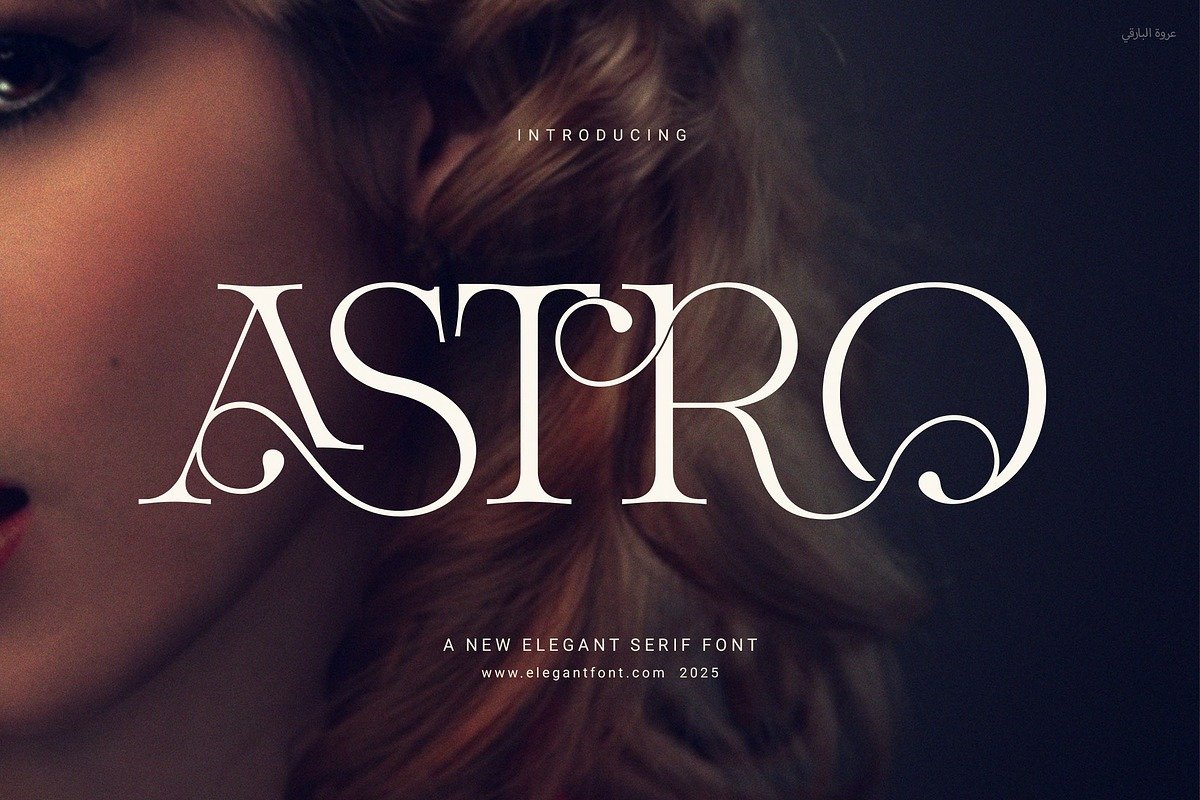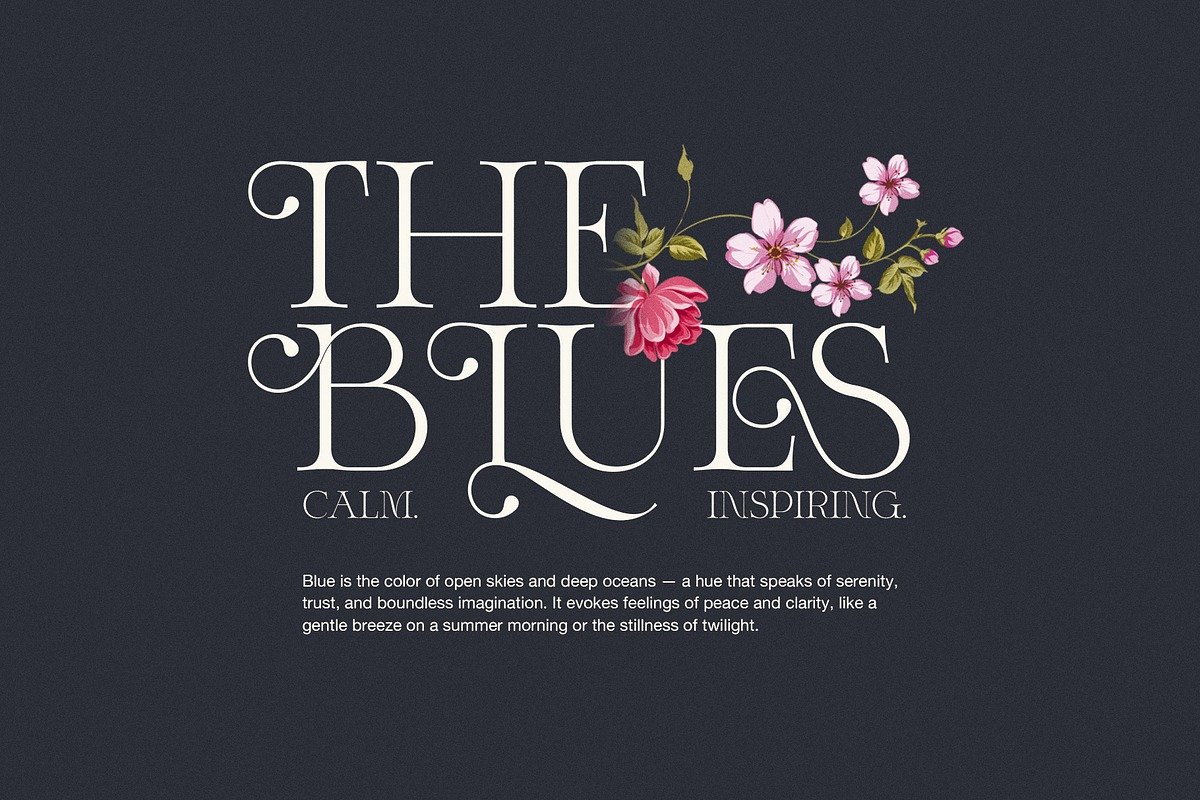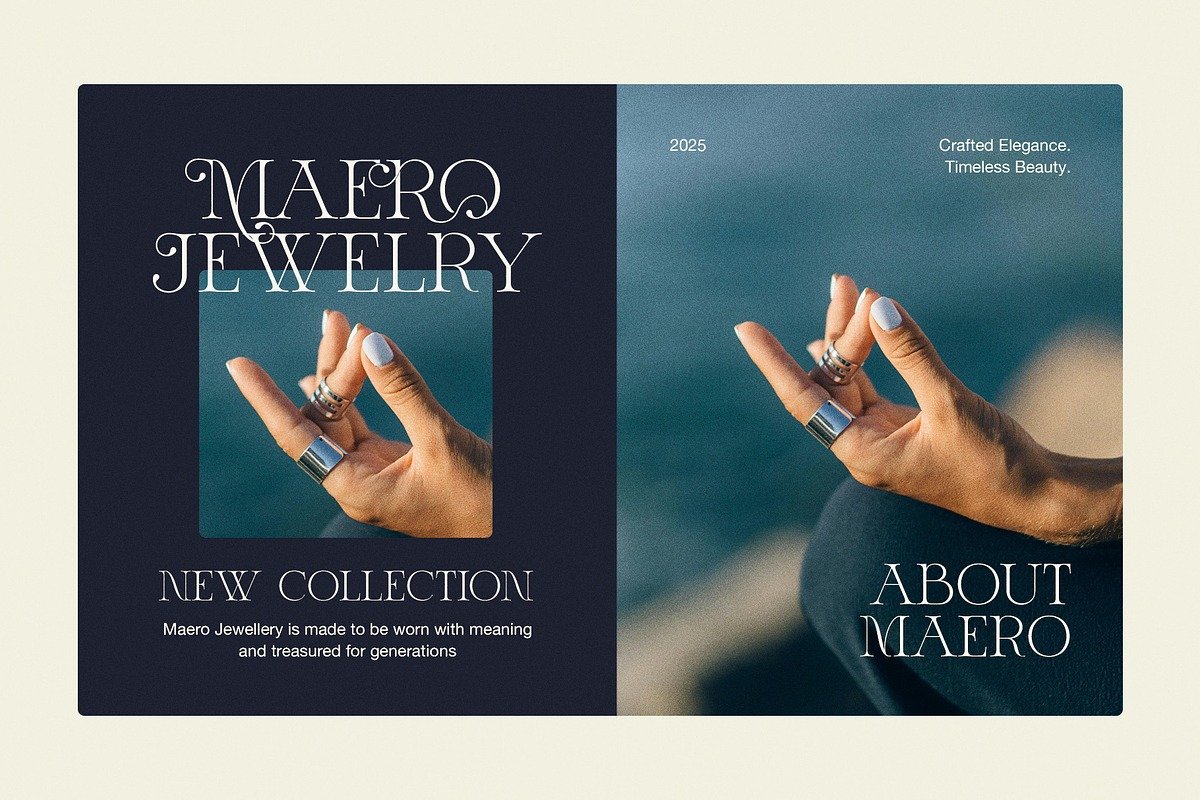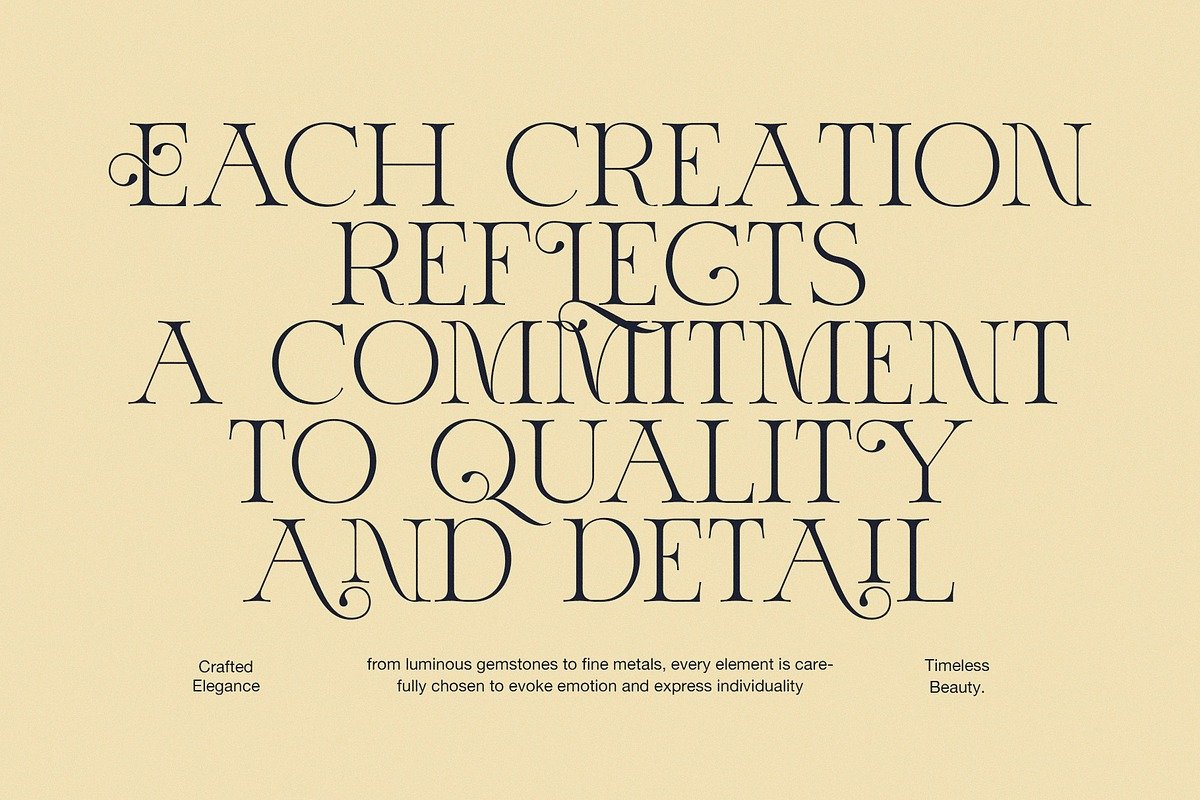
Astro Modern Serif Font
Astro Modern Serif Font: A Complete Exploration
In the expansive world of typography, few typefaces manage to achieve a fine balance between classic elegance and contemporary relevance. The Astro Modern Serif Font is one such typeface — a modern serif that brings sophistication, readability, and versatile design potential to creative projects. Whether used in branding, editorial design, digital media, or print, Astro’s refined character makes it a reliable choice for designers seeking a font that feels both familiar and fresh.
What Is the Astro Modern Serif Font?
At its core, Astro is a modern serif typeface designed to combine the timeless charm of traditional serif fonts with the clean, streamlined aesthetics of modern typography. This fusion results in a typeface that feels elegant without being overly ornamental, and contemporary without losing the classical traits that make serif fonts enduringly appealing.
Astro finds its identity in subtle design choices — smooth curves that flow naturally into sharp, well-balanced strokes, serifs that add character without clutter, and a structural rhythm that makes text both beautiful and legible. In practical terms, it includes a full character set — capital and lowercase letters, numerals, punctuation, and stylistic alternates — allowing designers flexibility in their layouts.
Design Features That Define Astro
Several key design features distinguish Astro from other serif fonts:
1. Modern Serif Letterforms
Astro’s letterforms are rooted in classical serif styles but are adapted with modern proportions and angles. This means the faces feel fresh and contemporary while maintaining the readability that serif typefaces are known for.
2. Smooth Curves & Sharp Edges
The strokes of Astro exhibit a balanced interplay of curves and straight lines. The smooth curves bring a humanistic warmth to the typographic voice, while the defined edges add clarity and professionalism — essential for both print and digital media.
3. Stylistic Alternatives & Ligatures
Beyond the standard character set, Astro often includes stylistic alternates and ligatures. These options allow designers to customize certain letters, add typographic flair, or experiment with creative textual play. This is especially useful in branding or titles where typography plays a major role in visual identity.
4. Versatility Across Mediums
Astro’s clean design ensures it works well at different sizes — from large headlines to supporting subheadings — without losing its charm. Its smooth readability makes it suitable for both print layouts like magazines and books, and screen applications such as web pages or mobile interfaces.
Practical Applications for Astro
Astro’s versatility shines in a wide range of design contexts:
1. Editorial Layouts
Magazines, books, and newsletters often depend on serif fonts to deliver large bodies of text with comfort and character. Astro’s balanced strokes and clear letterforms make it ideal for headlines, pull quotes, and even subheadings in editorial layouts.
2. Branding and Identity
For brands that want a look that is elegant but not old-fashioned, Astro is a strong choice. Its refined aesthetic works well for logos, business cards, product packaging, and identity systems that need a modern yet sophisticated voice.
3. Invitations & Print Collateral
Astro’s serifs lend an air of special occasion — making it suitable for wedding invitations, formal event materials, posters, and certificates. Its classic warmth paired with contemporary flair ensures it feels personal and stylish.
4. Web & Digital Design
Although serif fonts are often thought of as print-first, modern serif designs like Astro translate beautifully to screens. With high-resolution displays and improved web font technology, Astro can bring legibility and visual interest to websites, blogs, and mobile apps.
More Read: Click Now
Pairing Astro with Other Fonts
Astro can be paired with other font styles to enhance design contrast:
• Sans-Serif for Body Text: To balance Astro’s expressive serifs, pairing it with a clean sans-serif (e.g., a geometric or humanist sans) for paragraph text can create visual hierarchy and clarity.
• Script or Display Fonts: When used sparingly, expressive scripts or decorative display fonts can bring out Astro’s elegance in titles or accents.
• Slab Serifs: Pairing Astro with slab serifs can introduce a more dynamic typographic texture — especially suitable for editorial or artistic layouts.
Licensing and Software Compatibility
Like most professional fonts, Astro is typically available under a commercial license that allows usage across different mediums, provided the license covers that use. Standard font formats — such as OTF and TTF — ensure compatibility with major design software including Adobe Creative Cloud, CorelDraw, and Affinity Designer.
Astro Compared to Other Serif Fonts
To place Astro in context, let’s briefly compare it with other well-known serif types:
Typeface Style Character
Astro Modern Serif Clean, elegant, versatile for branding, editorial, digital.
Theano Didot Didone / Modern Style High contrast, classic, best for fashion/editorial.
Bernhard Modern Early Modern Serif Vintage character with historical influence.
Astro stands somewhere between a classic modern serif like Didot and a more traditional old-style serif. Its design is less contrasty than Didot but more contemporary than historical serif fonts — making it a go-to choice for designers who want timelessness without being traditional.
Conclusion
The Astro Modern Serif Font exemplifies how typography evolves while honoring tradition. Its elegant letterforms, modern balance, and wide practical appeal make it a standout choice for designers across graphic, print, and digital arenas. Whether you’re creating a brand identity, crafting editorial layouts, or designing a website, Astro brings both clarity and character to your text.
In a design landscape that increasingly values personality alongside usability, Astro’s fusion of serif heritage and modern sophistication proves that well-designed typefaces still hold profound creative power.
Related Posts:
• Untitled design - 2025-12-22T214245.126
This is Gafia Font
• czM6Ly9maWxlcy5jcmVhdGl2ZW1hcmtl - 2026-01-16T190427.319
Mordo Elegant Modern Serif Font
• Untitled design - 2025-11-30T133826.423
Malgota Font Download
• czM6Ly9maWxlcy5jcmVhdGl2ZW1hcmtl - 2026-01-16T185355.505
Daily Ramide Serif Font
• czM6Ly9maWxlcy5jcmVhdGl2ZW1hcmtl - 2026-01-16T181158.744
Suckira – Modern Elegant Serif Font
• I also design logos, labels, Fonts, Mockups, packaging, flyers, posters, Book covers, and brochures. Business card, Social media post, etc. Let's talk about your projects. (2)
Best Marge Font Download
• Untitled design - 2025-11-28T202725.349
Qilbrid Font Free Download
• Untitled design - 2025-12-19T223348.709
Gloria Rocha Font
• Cagier - Elegant Display Font
This is Cagier - Elegant Display Font
• czM6Ly9maWxlcy5jcmVhdGl2ZW1hcmtl - 2026-01-16T181840.088
Molgin Elegant Serif Font
• Untitled design - 2025-12-21T213641.342
Download Callume Font
• Untitled design - 2025-12-19T225957.140
Free Molika Font Download
• Untitled design
Magnisa Font Download
• Vertical Kraft Soap Box Packaging Mockup
The Strova Font Download
• ♥ ♥ You will receive ♥ ♥ –High-quality PNG Files with the best quality. – DPI 300 Perfect for wedding invitations, greeting cards, party invitations, posters, birthday party invitations, flyers, b (52)
Corfella Phantom Font Download
Search
• Affiliate Disclosure
• Contact US
• Disclaimer
• Home
• Privacy Policy
• Terms and Conditions
Affiliate Disclosure
The links contained in this product review may result in a small commission if you opt to purchase the product recommended at no additional cost to you. This goes towards supporting our research and editorial team.